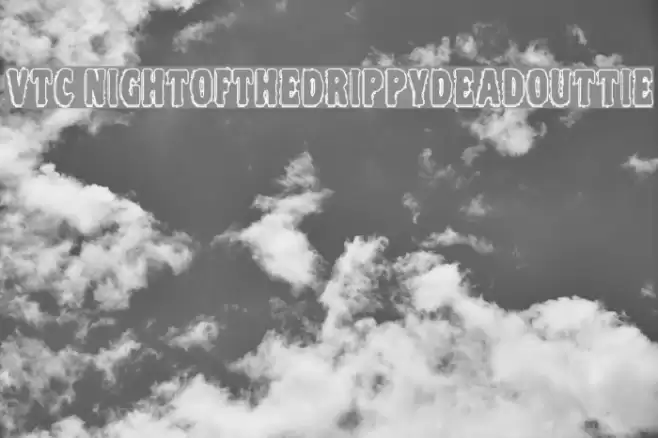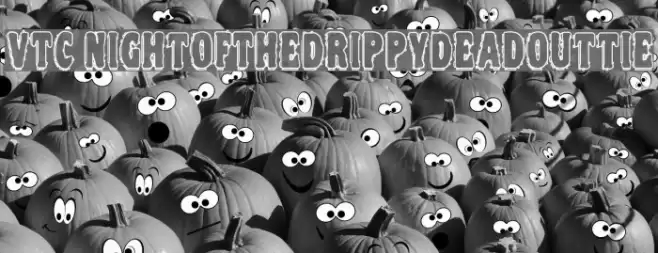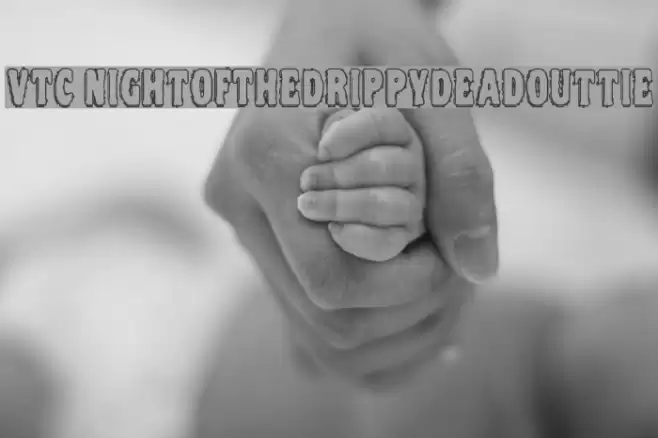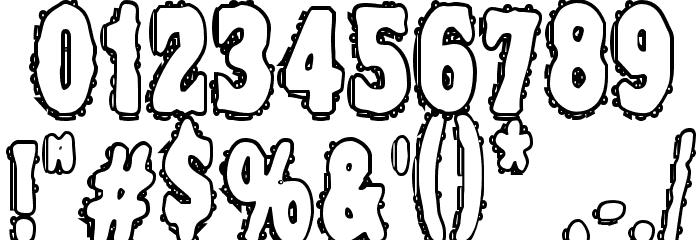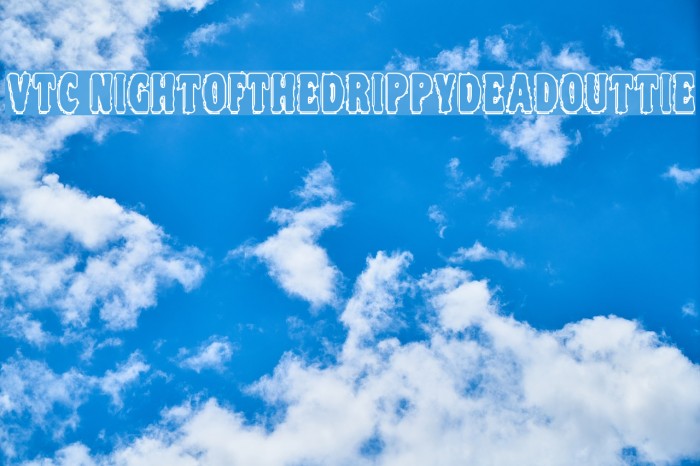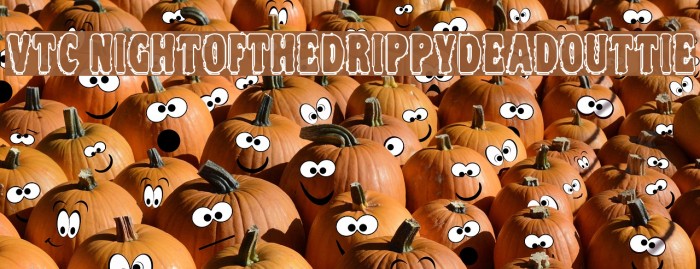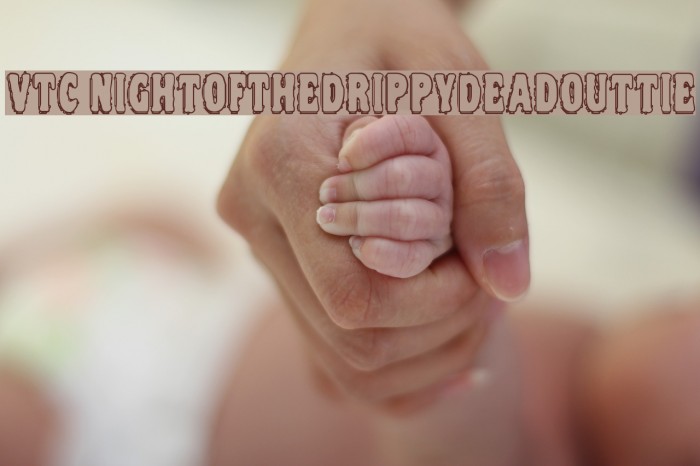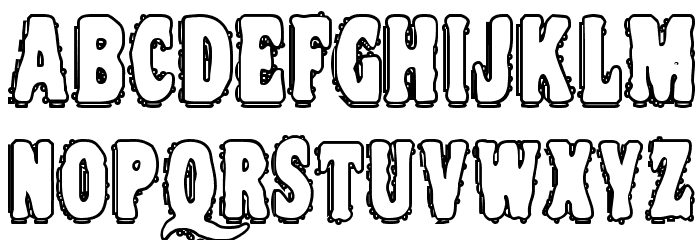
VTC NightOfTheDrippyDeadOuttie Font
VTC NightOfTheDrippyDeadOuttie Description
This font features a playful, dripping effect that gives each character a unique, melting appearance. The bold, rounded letters are outlined with a thick black border, enhancing the dripping illusion. The uppercase and lowercase letters maintain a consistent style, with the lowercase being slightly smaller but equally bold. Numbers and special characters are designed with the same dripping effect, ensuring a cohesive look across all glyphs. This font's quirky and spooky aesthetic makes it ideal for Halloween-themed projects or any design that requires a fun, eerie touch.
A bold, dripping font with a playful, spooky aesthetic from Uncategorized fonts.
- Proposed Projects: Ideal for Halloween invitations, horror movie posters, themed party decorations, or any project needing a fun, eerie touch.